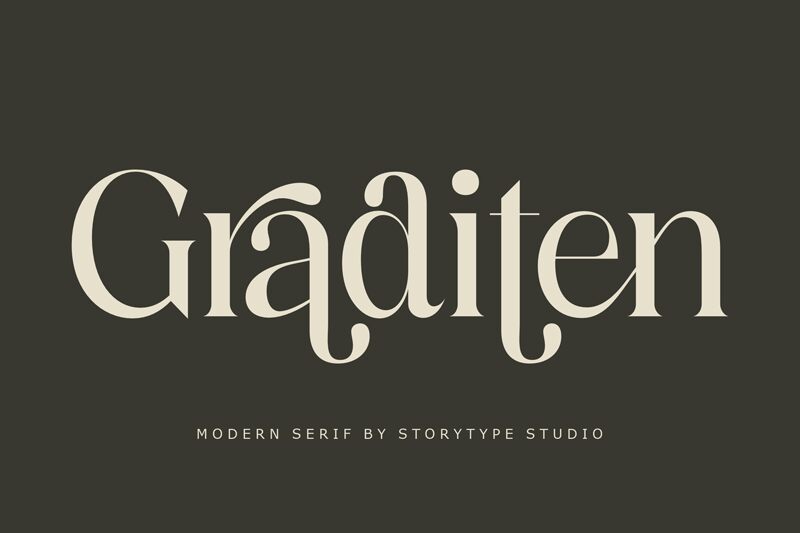
Graditen
Graditen, crafted by Storytype Studio, is a serif font that exudes a blend of classic elegance and contemporary boldness. Its distinctive serifs and subtle curves convey a sense of sophistication, making it an ideal choice for editorial design, branding, and upscale advertising campaigns.
The font's balanced proportions and tasteful presence offer an aesthetically pleasing reading experience. Graditen's versatility is found in its potential to create impactful headlines as well as provide clarity in body text. Whether your project calls for the gravitas of tradition or the freshness of modern design, Graditen stands ready to elevate your creative vision with its unique character and style.